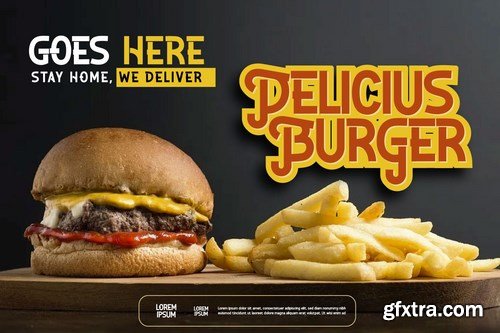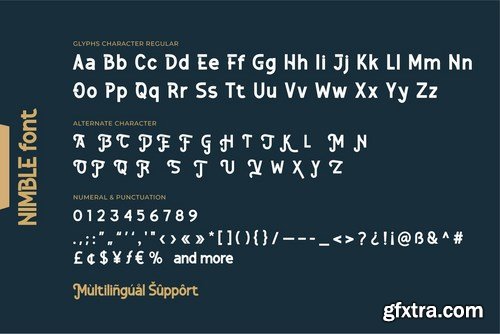
carries a strong, unique, cute, elegant, and formal character theme with a different touch, giving a new impression. beautiful, harmonious, relaxed but still formal. This font is rich in uniqueness in various characters in each letter, especially uppercase letters. you can alternate calls in each uppercase letter to create a new and captivating look in writing a name or trademark or something else.